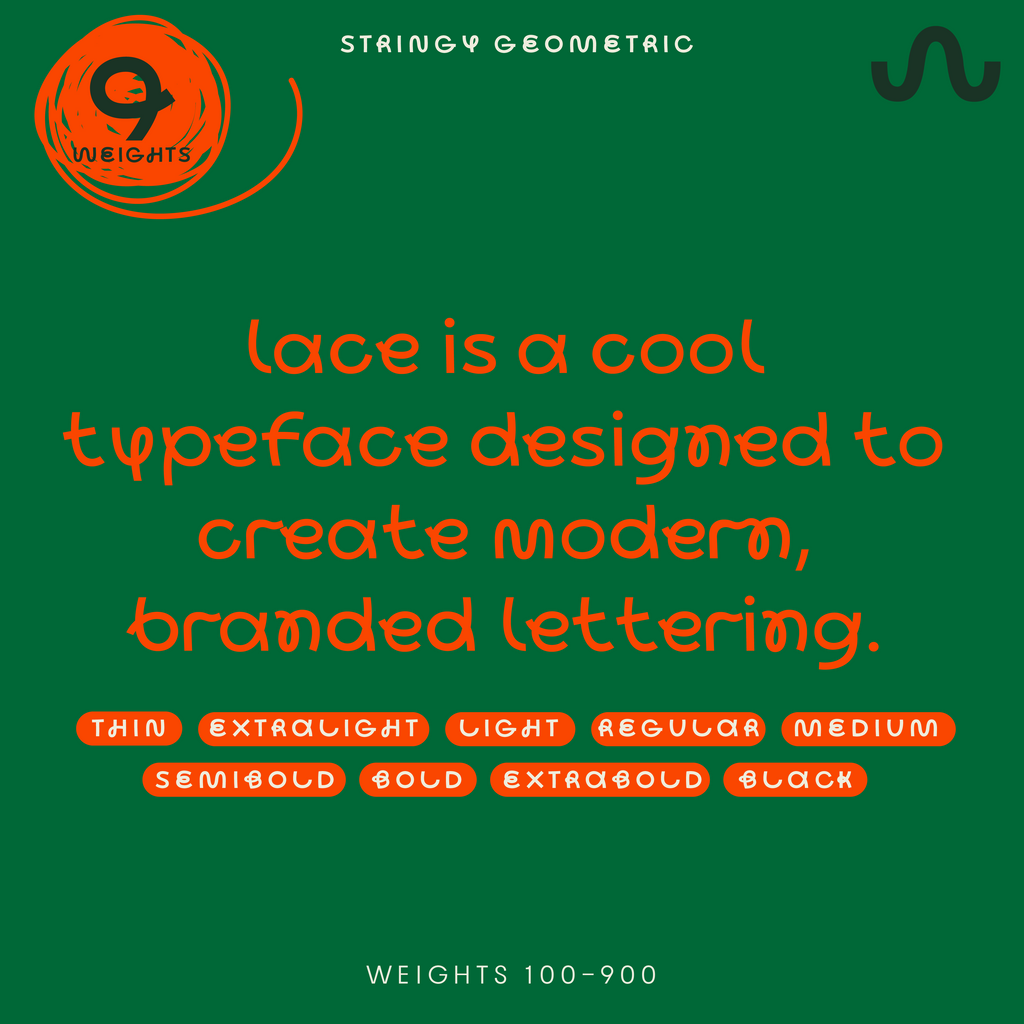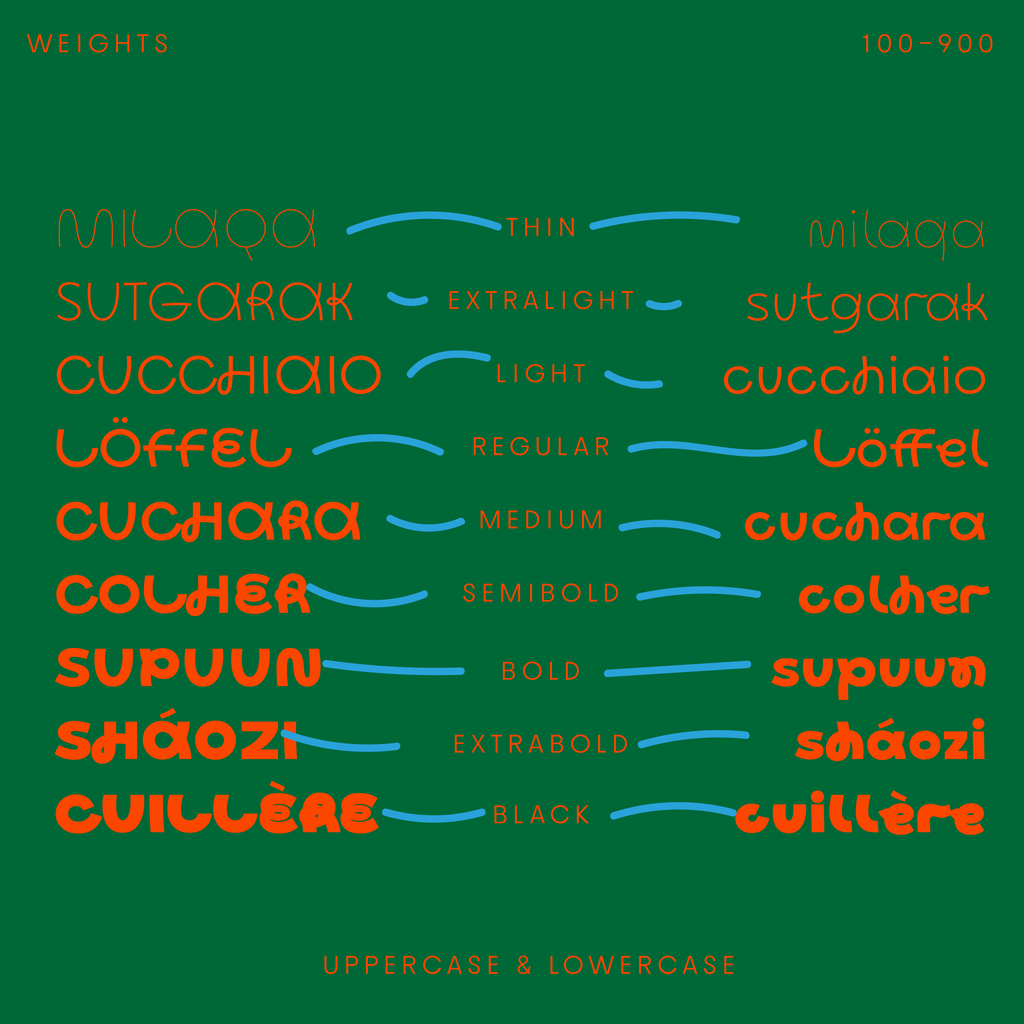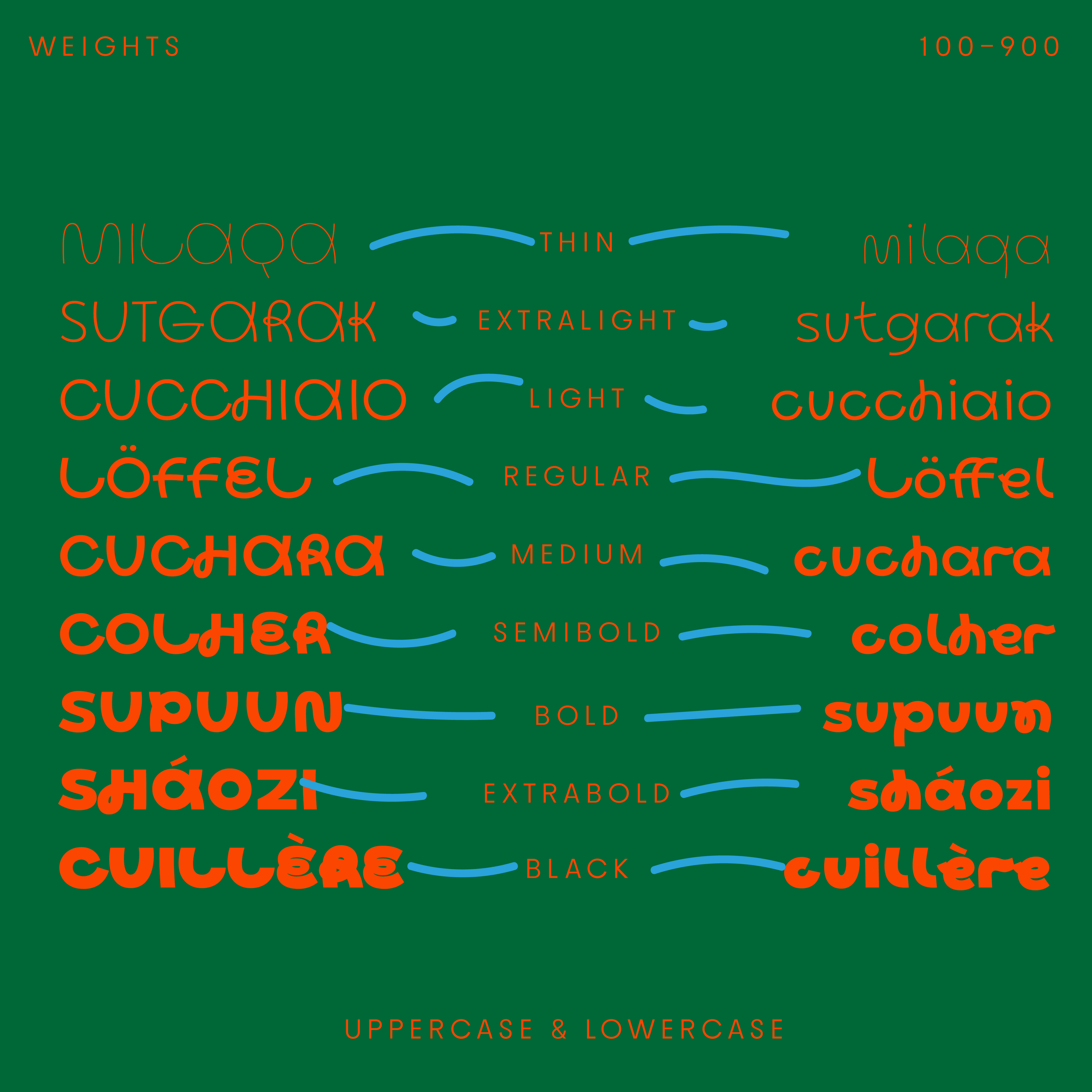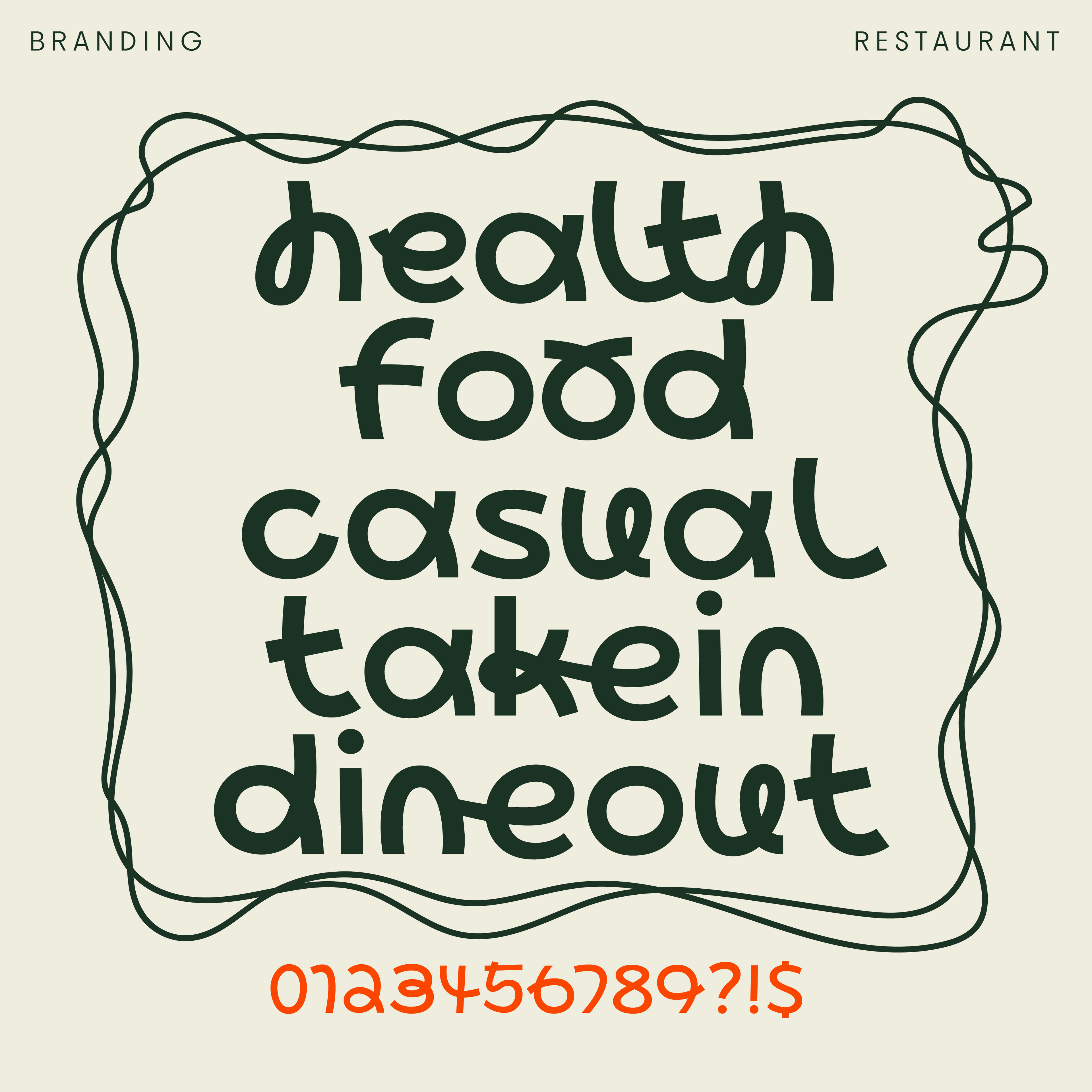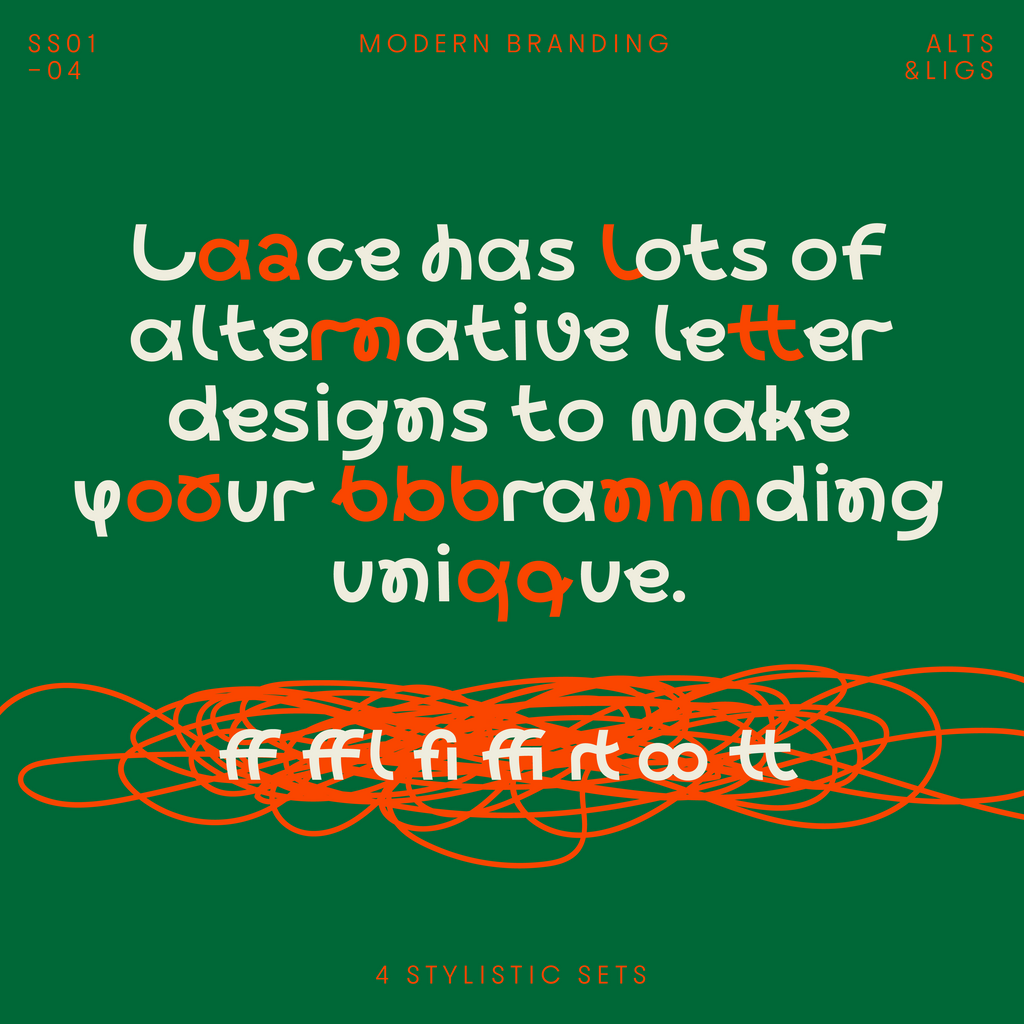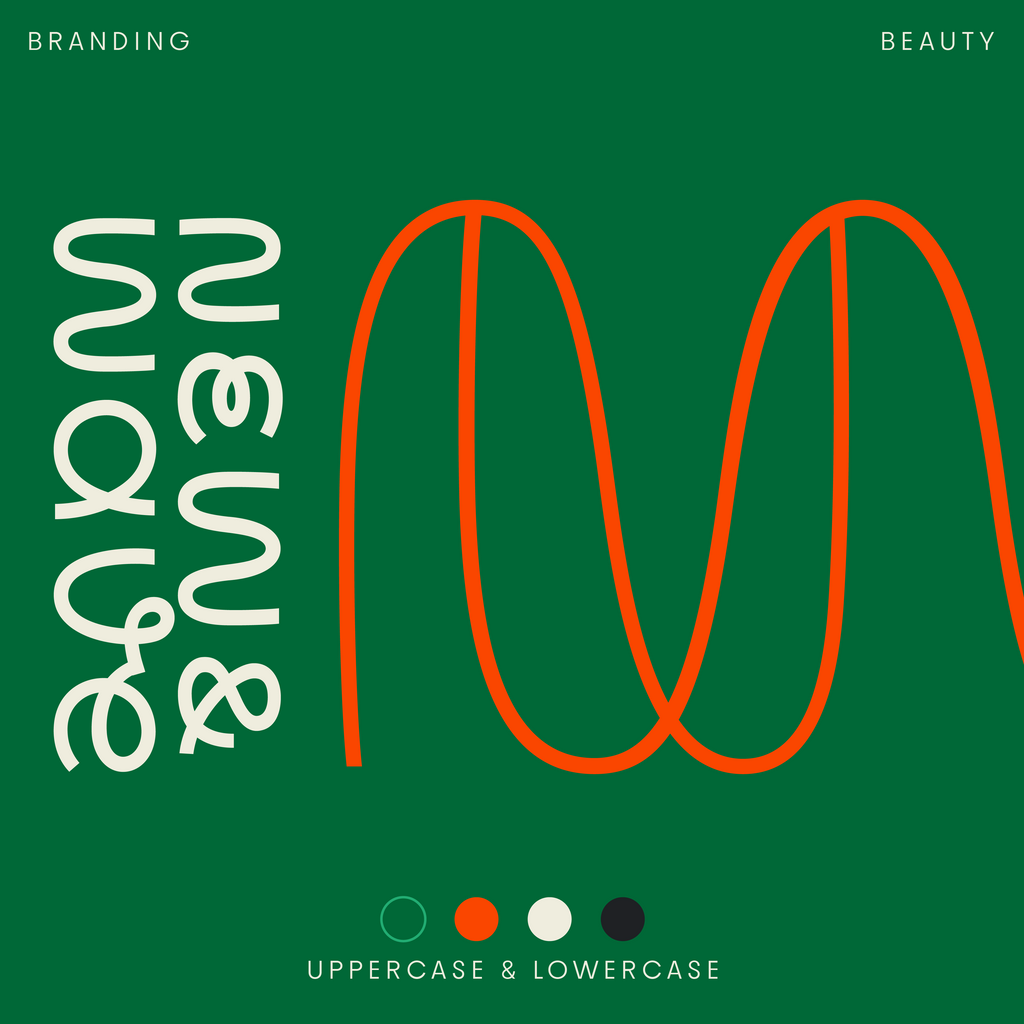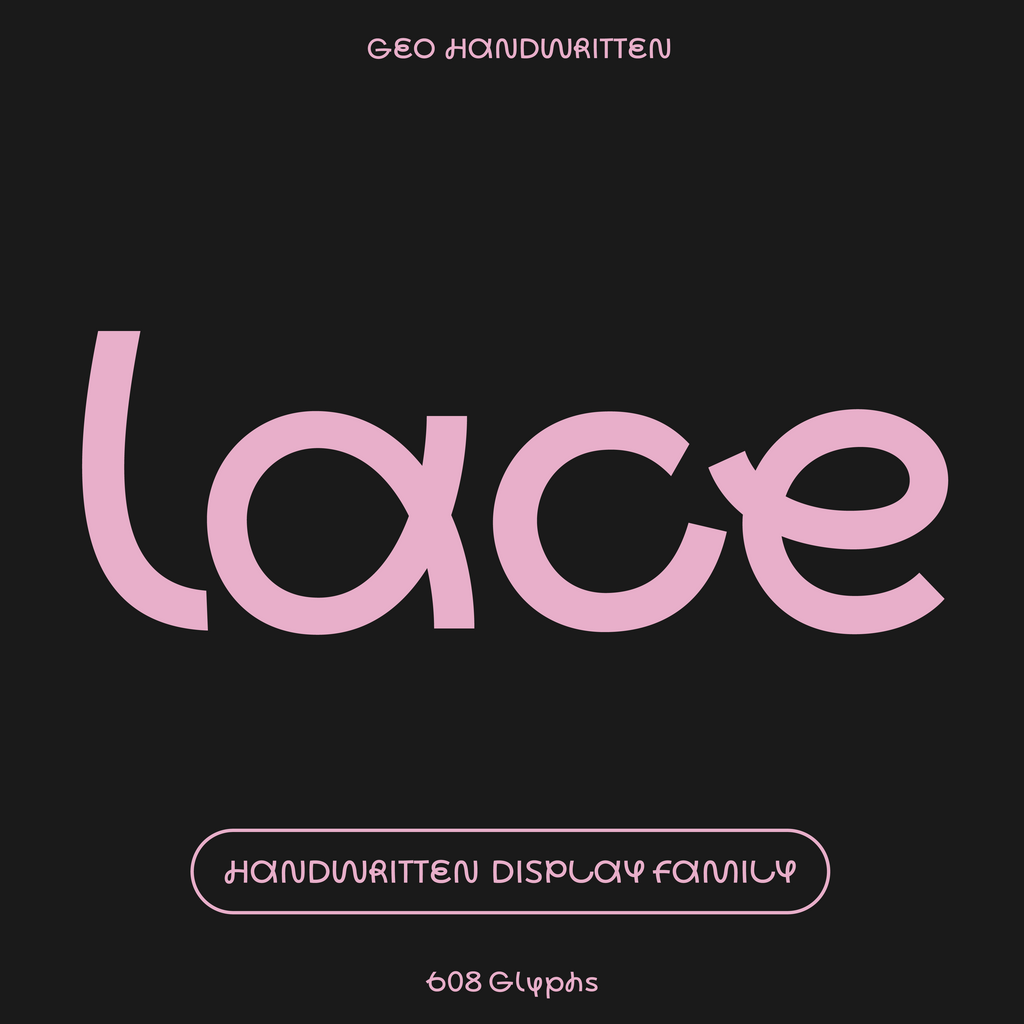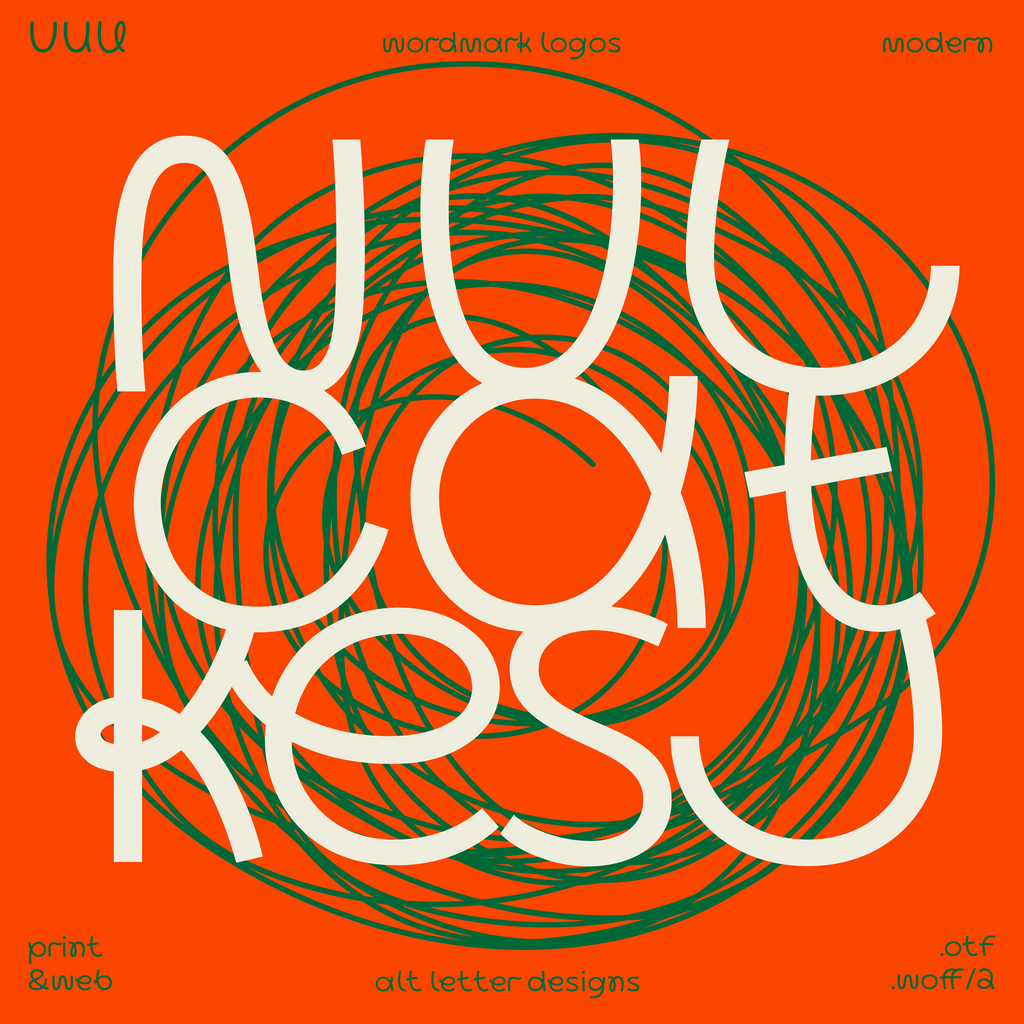
Bauhaus Lace, handwritten geometric type
Lace—Monoline Handwritten Font, Loops
Lace is a cool loopy typeface for modern, branded lettering. Chunky in bolder weights, lace-like in lighter weights. While it has a handwritten character, its strokes are uniform and only vary with font weight. Lace is drawn for restaurant and beauty branding featuring a modern, personal look.
Lace in detail
Family
Variable font, weight axis wght 100-950, with 9 named weights: Thin, ExtraLight, Light, Regular, Medium, SemiBold, Bold, ExtraBold, Black. 613 glyphs, 417 characters, 4 stylistic sets.
Languages
Latin, Western European accents, Central European.
Figures
Proportional, tabular, slashed zero.
OpenType features
Case-sensitive punctuation, discretionary ligatures, standard ligatures, proportional figures, tabular figures, slashed zero.
Ligatures
On by default: ff, fi, ffl. Discretionary, switched on by the designer: ffi, tt, oo, rt.